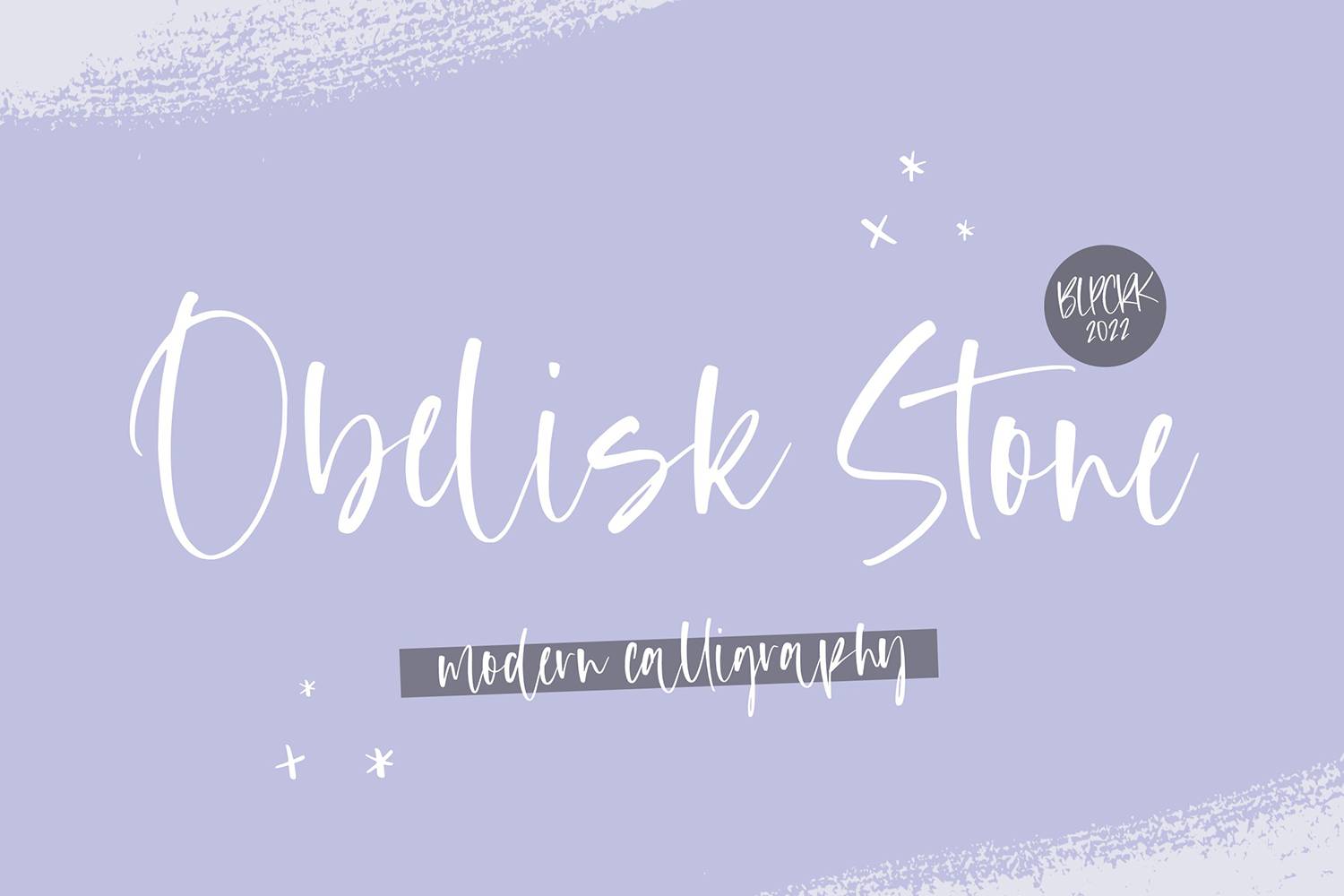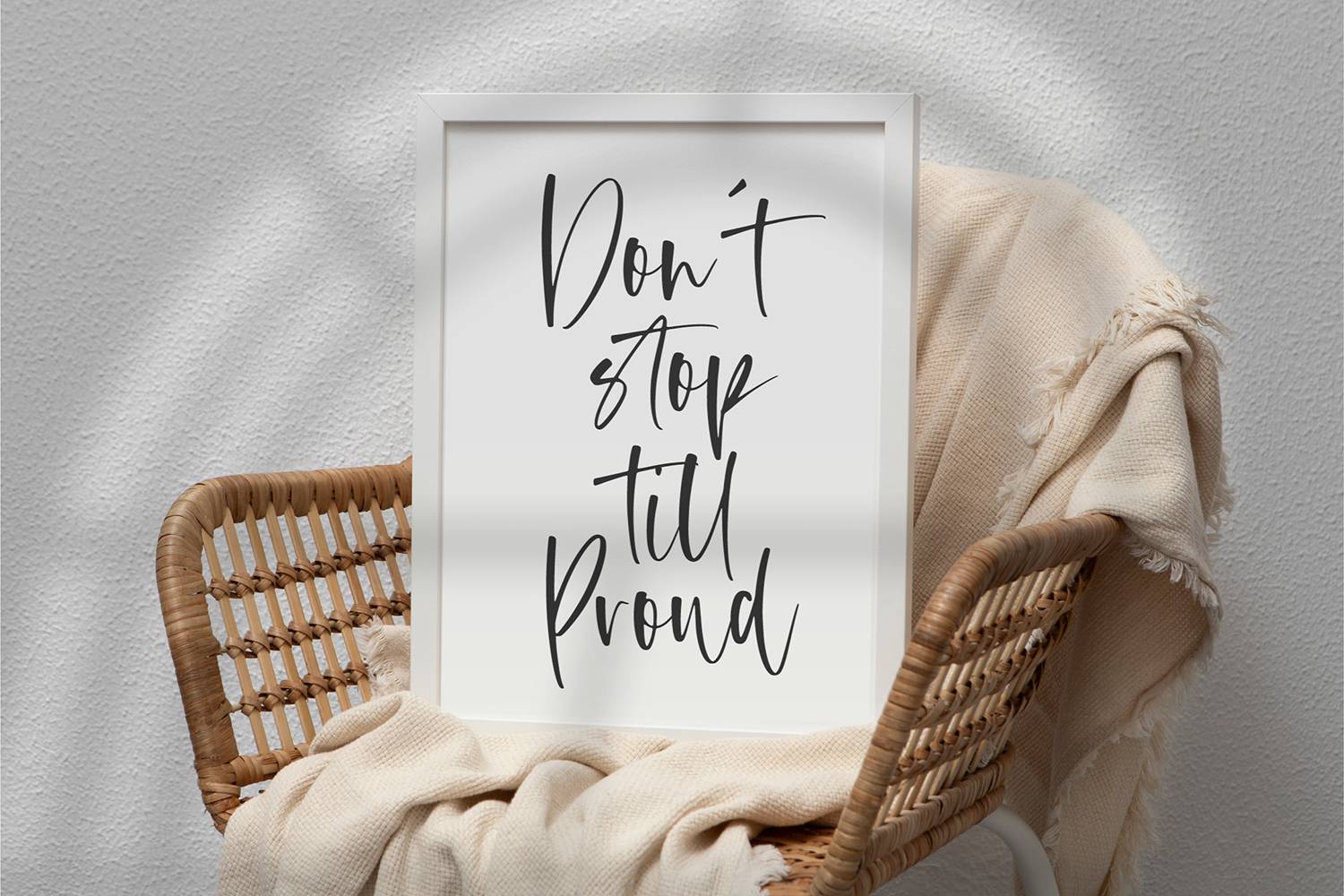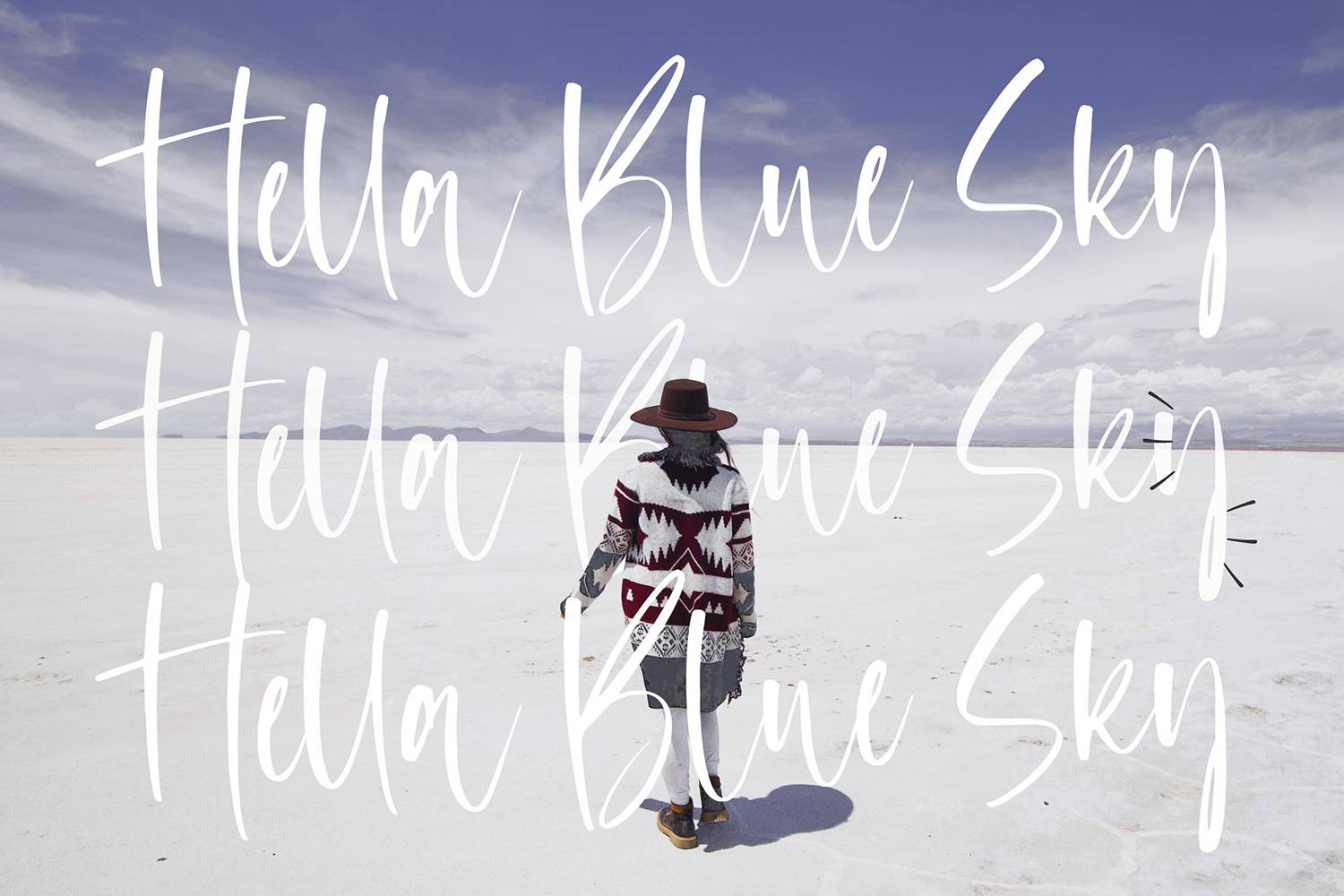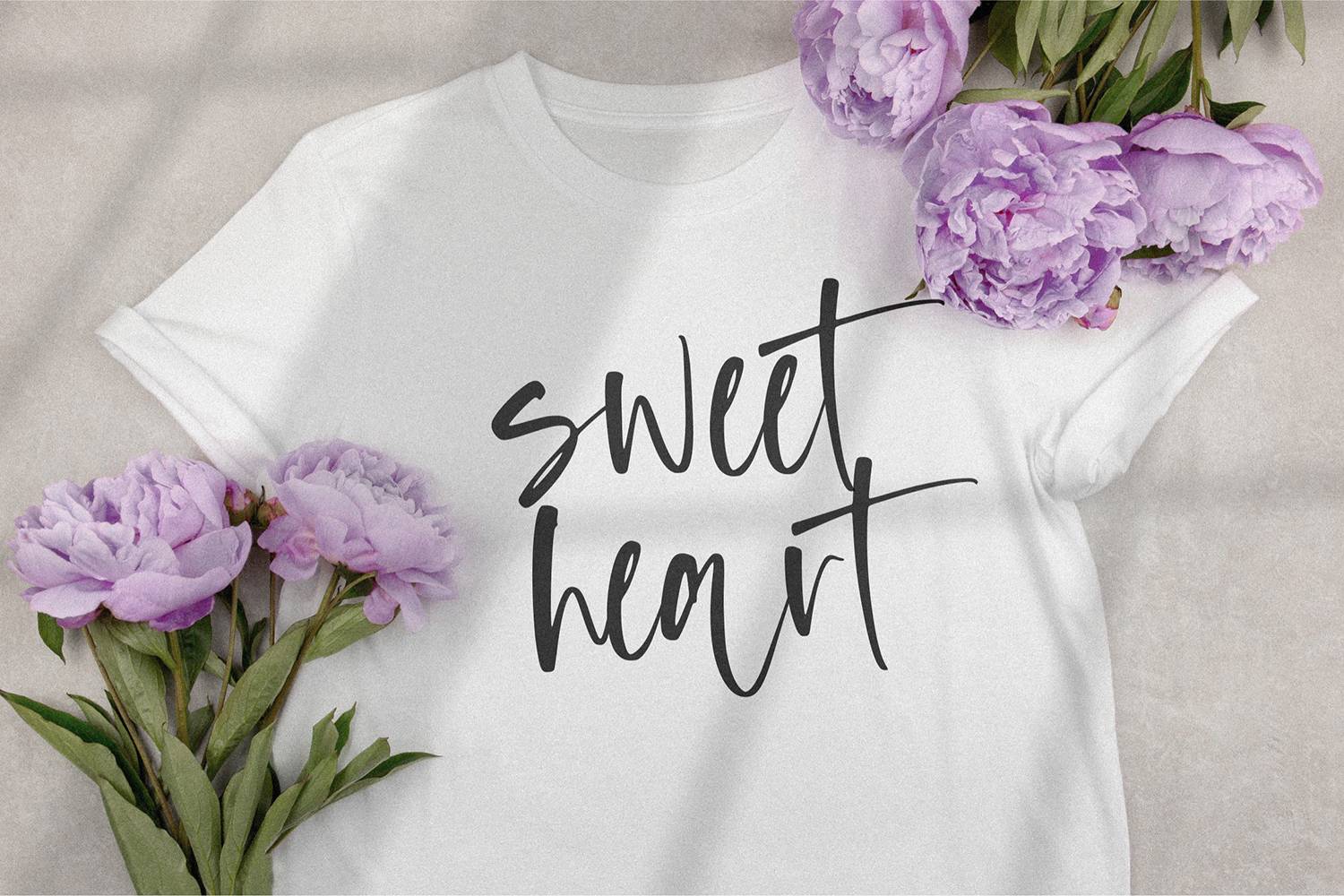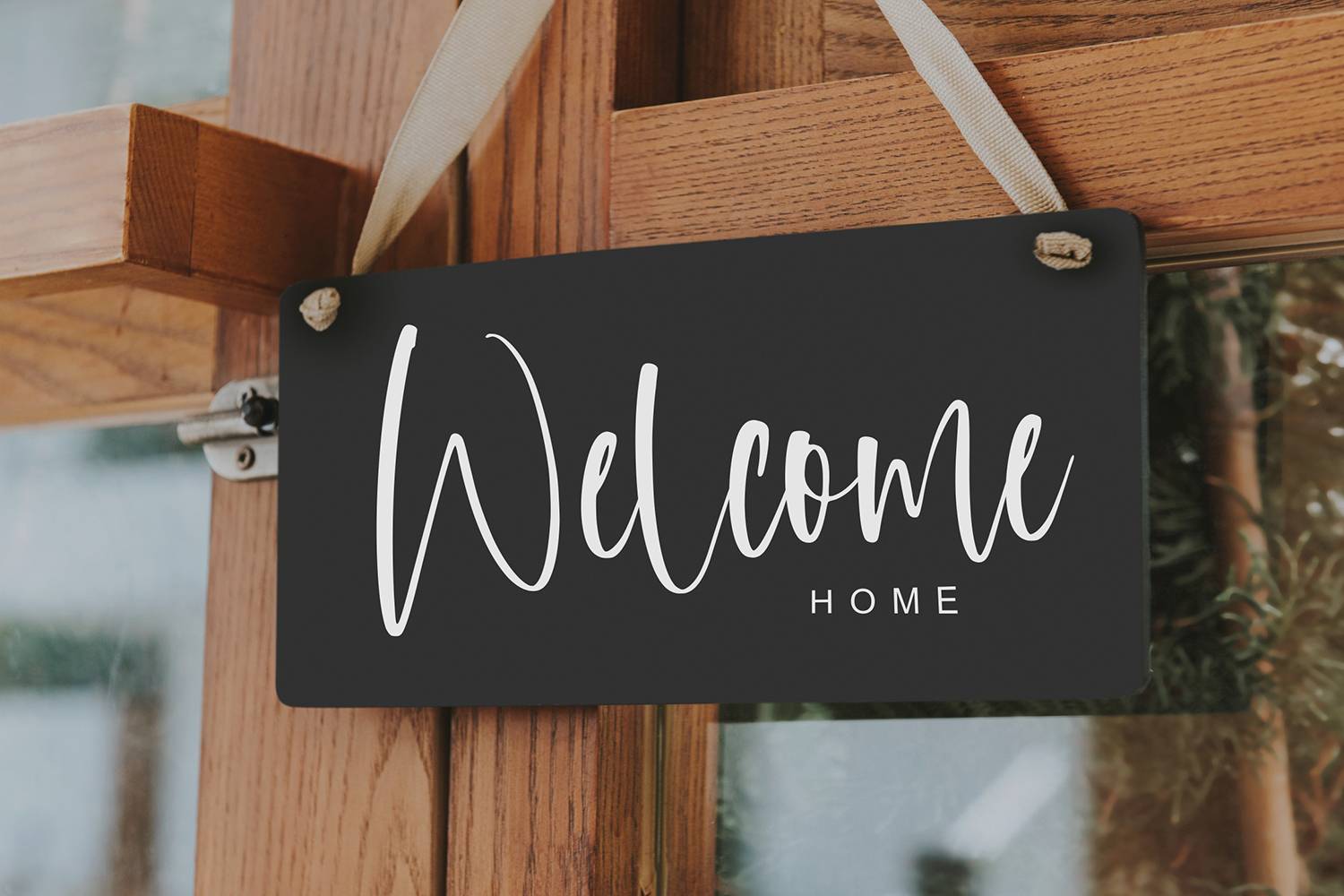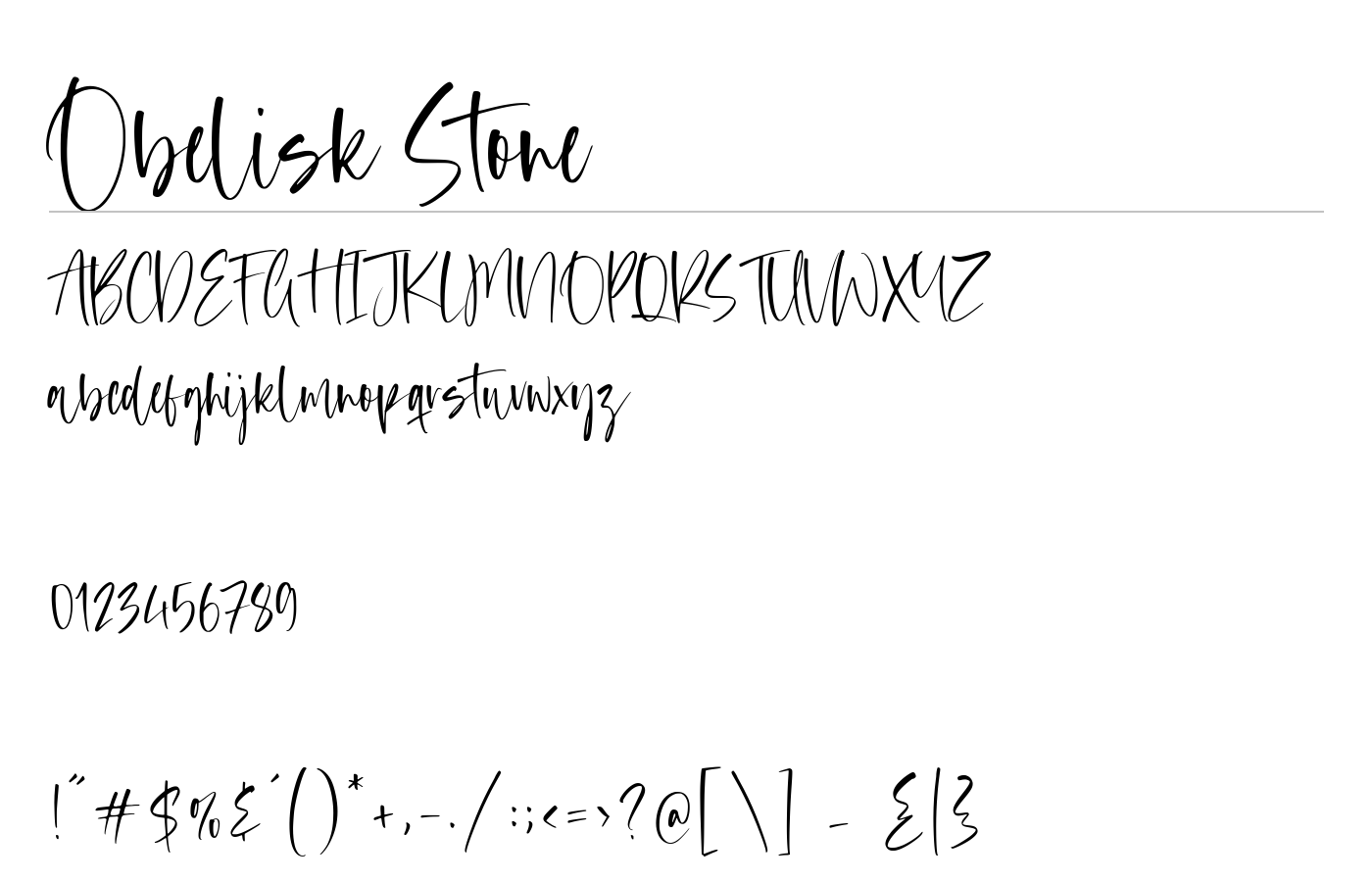
Obelisk Stone is a delicate, handwritten script font characterized by its tall, narrow letterforms and fluid, playful strokes. It exudes a casual yet elegant vibe, making it perfect for creative and personal projects such as invitations, branding, or social media content where a warm, approachable style is desired. With its airy spacing and distinctive character shapes, it works best in headlines or short texts that need a touch of personality and charm.
Obelisk Stone Font
About Obelisk Stone Font